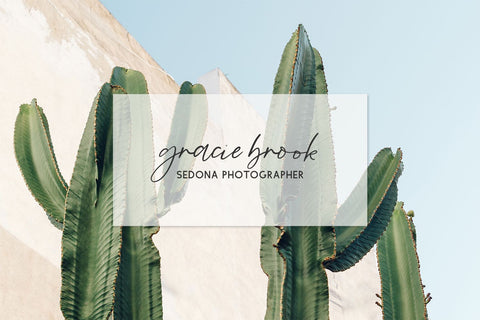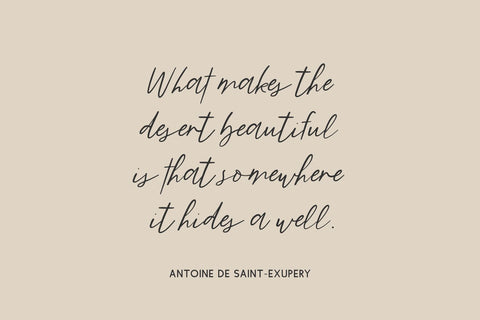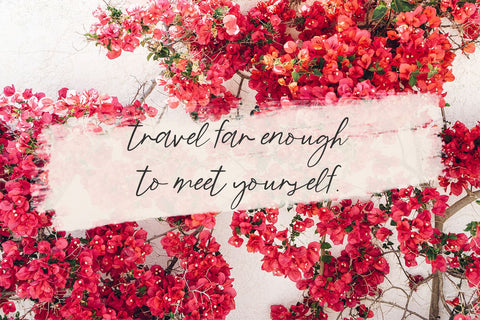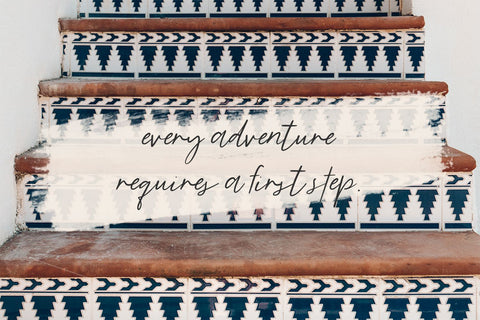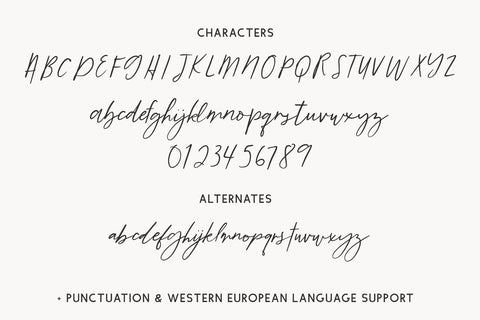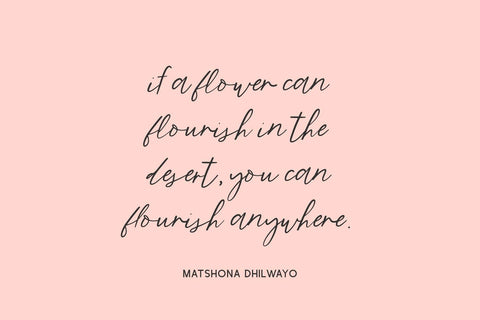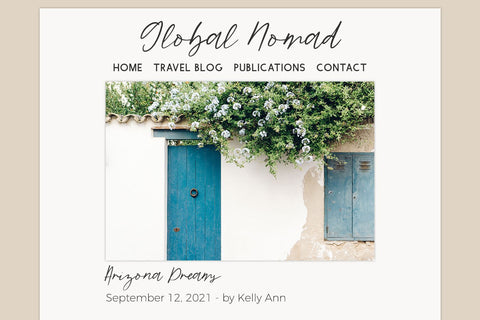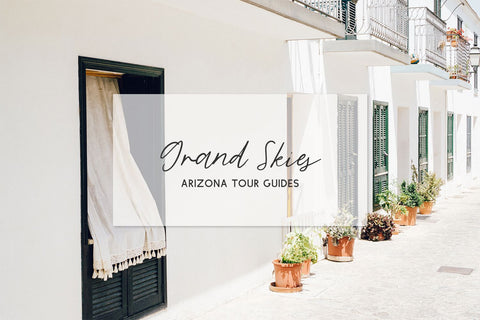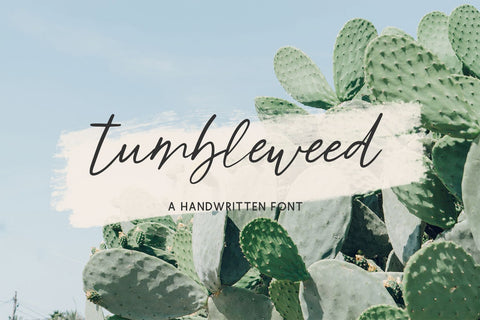
Tumbleweed Script Font
Introducing Tumbleweed Script, a messy signature script.  This script includes a full set of lowercase alternates to enhance the handwritten appeal.
Tumbleweed Script is best for:
- logos + branding for gender-neutral applications
- website design + website accents - think design blogs, travel blogs, fashion blogs, & more
- clean print design, like magazines + flyers
- header elements that need handwritten touch
- quote graphics for social media
Tumbleweed Script includes:
- full upper + lowercase characters
- numbers + punctuation
- 26 alternates
- Western European Language Support